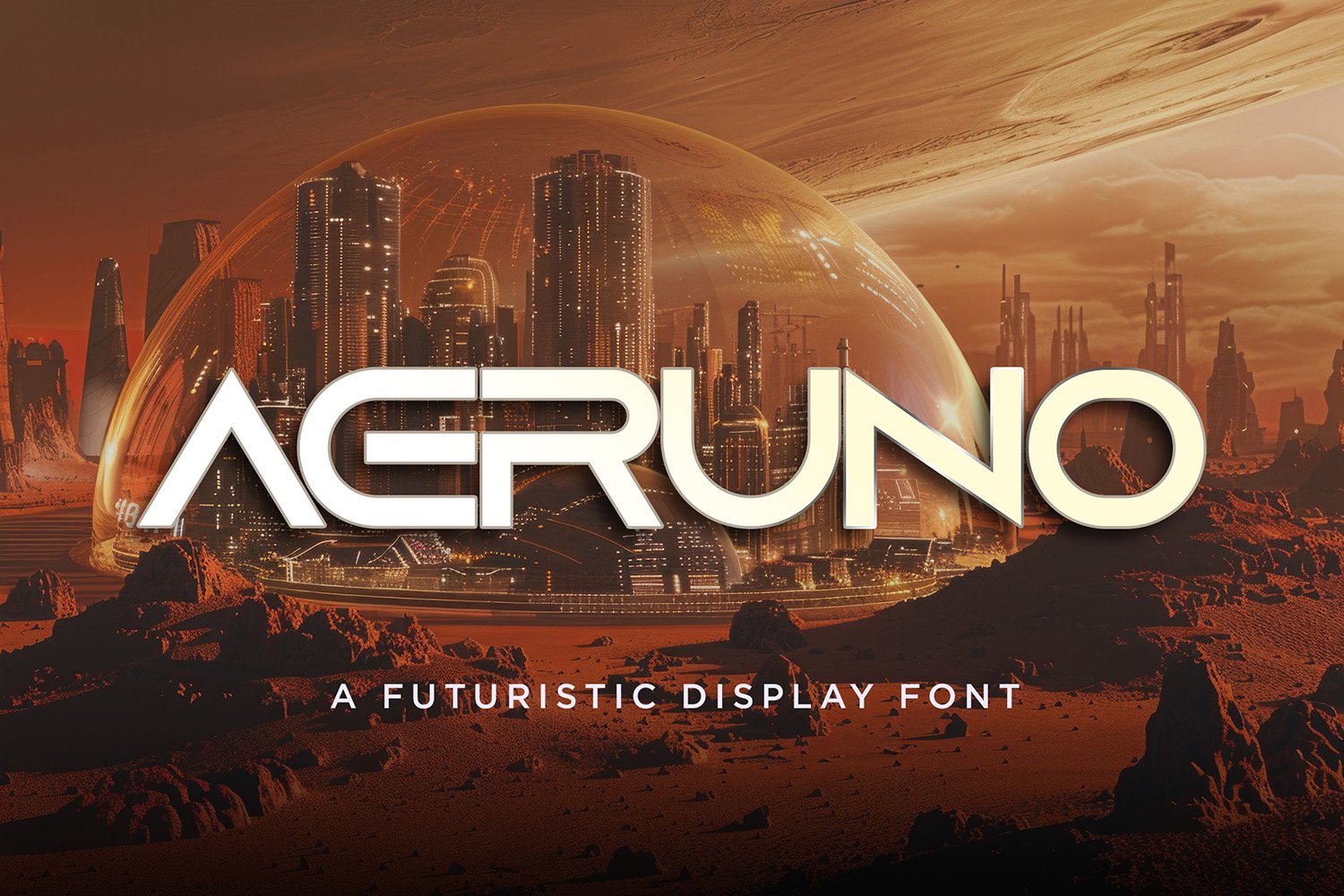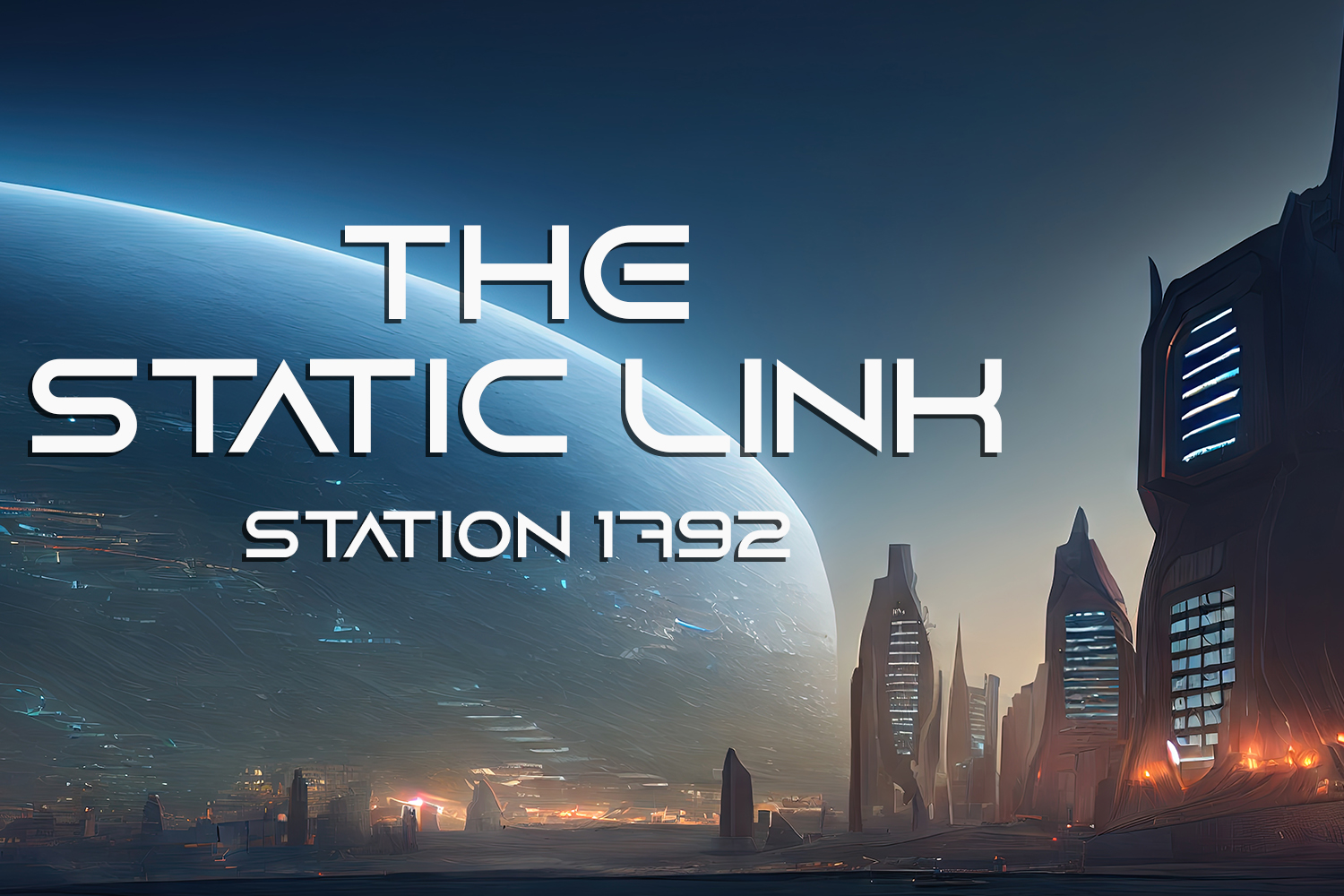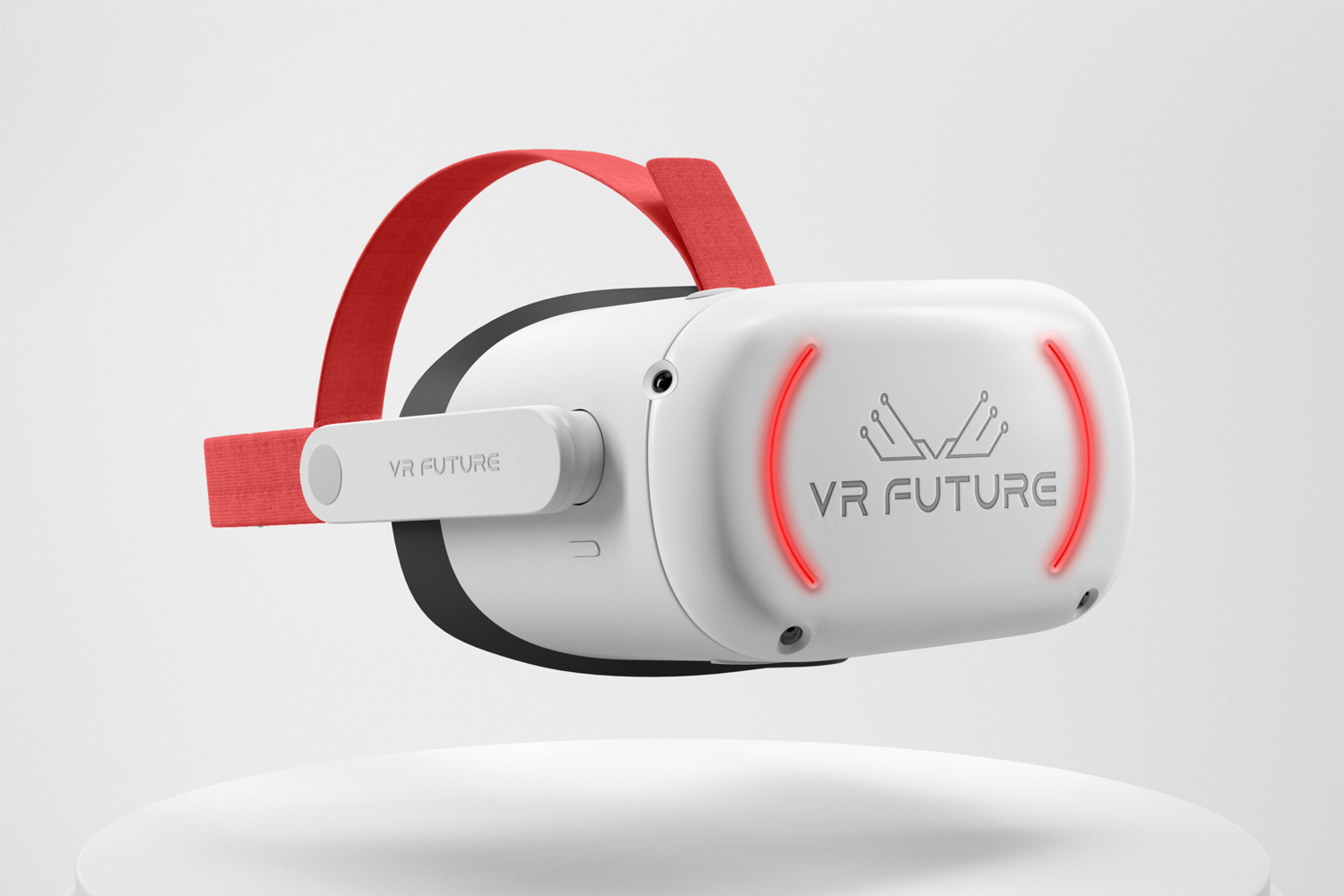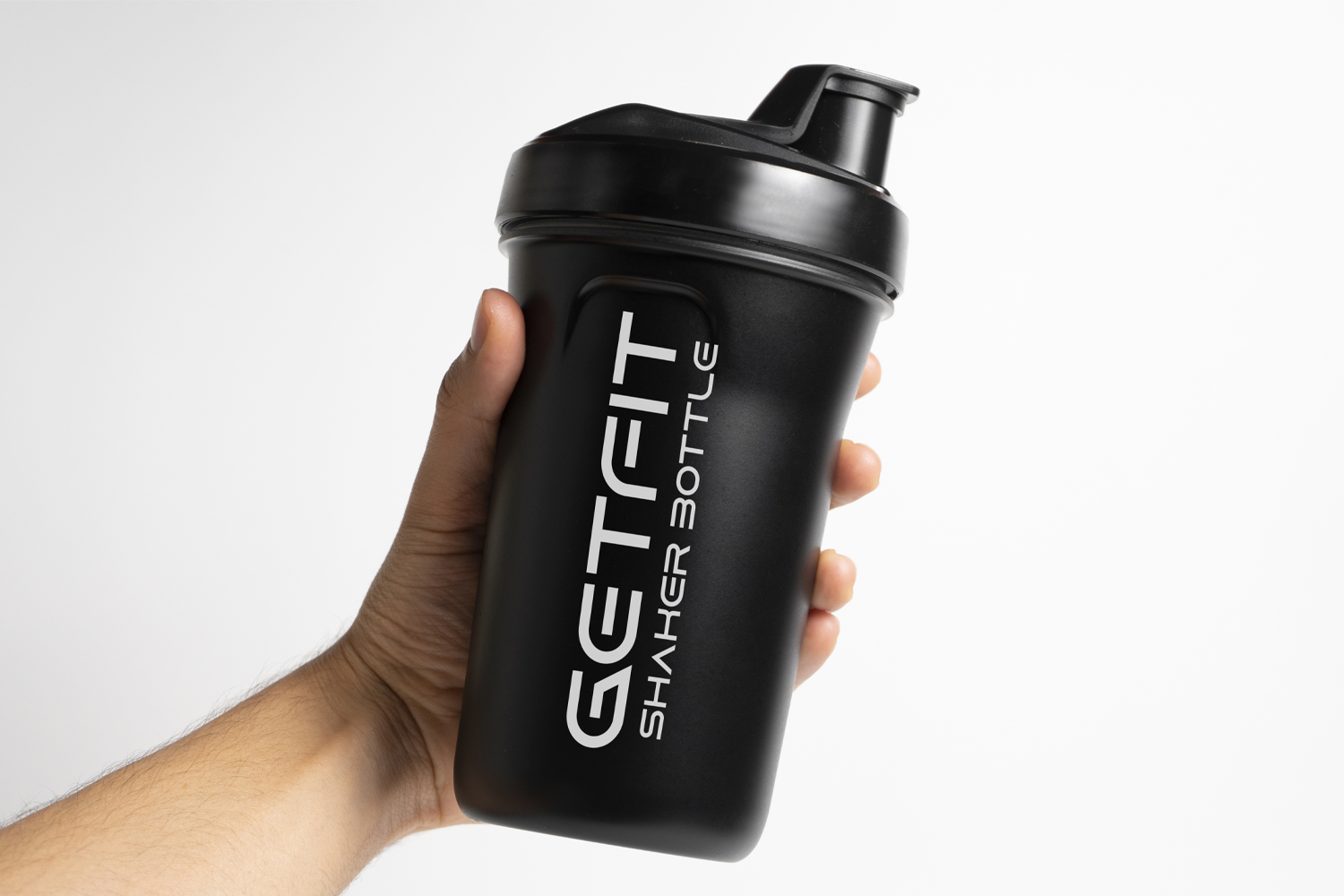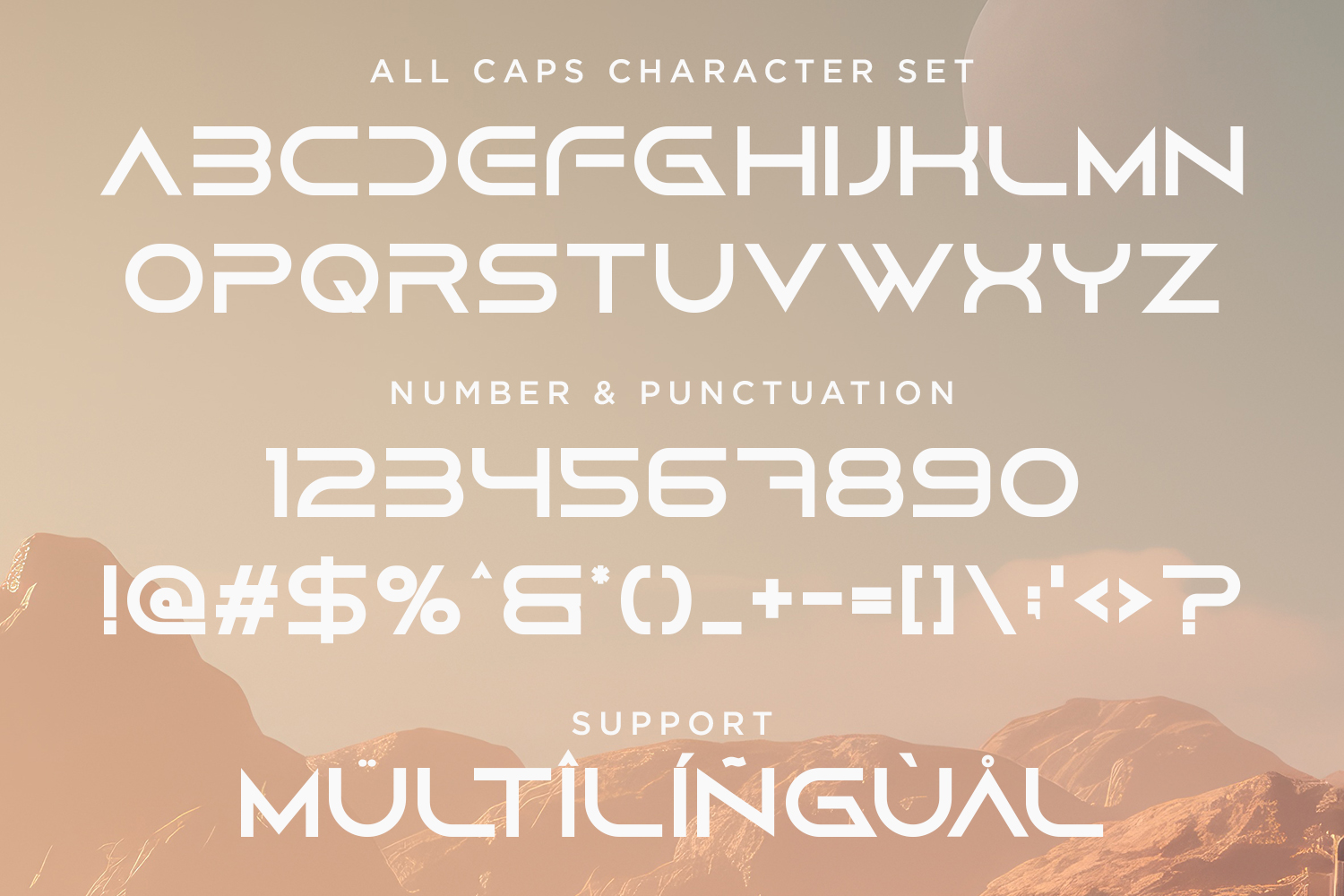
Aeruno Futuristic Display Font
Introducing AERUNO - Futuristic Display Font
Aeruno is a modern futuristic sans font with a bold feel. It will add a contemporary update to any design project. Add it to your most creative ideas and notice how it makes them come alive!
- Uppercase and Lowercase letters
- Numbering and Punctuation
- Multilingual Support